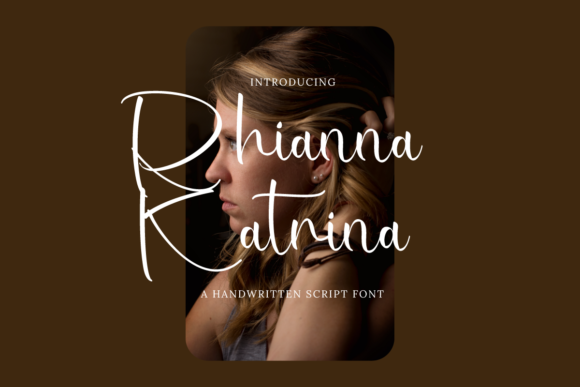
Journey into the realm of elegance and charm with Rhianna Katrina Font, a creation of Okara Studio, designed to be your go-to font for crafting exquisite wedding cards. This script font, a symphony of grace and sophistication, effortlessly blends the charm of traditional calligraphy with a touch of modern flair.
Picture your wedding invitations adorned with the delicate strokes of Rhianna Katrina. Its sweeping lines and graceful flourishes will transform your words into an enchanting symphony, captivating the hearts of your guests. Each letter, meticulously crafted, dances across the page, exuding a timeless beauty that transcends trends.
Rhianna Katrina Font is not merely a collection of characters; it's an experience, an expression of love and joy. Whether you're a professional designer or a creative enthusiast, this font will unleash your imagination, propelling your projects to unimaginable heights.
With Rhianna Katrina, you'll discover a world of creative possibilities. Design breathtaking wedding stationery, from save-the-dates to thank-you cards, that will leave a lasting impression on your loved ones. Create eye-catching social media graphics that capture the essence of your special day. Or let your imagination soar as you craft personalized gifts and home décor that radiate warmth and elegance.
The versatility of Rhianna Katrina extends beyond wedding-themed projects. Its timeless aesthetic lends itself effortlessly to a wide range of design endeavors. From branding and logos to marketing materials and social media posts, Rhianna Katrina will elevate your designs, exuding a touch of sophistication and charm.
Rhianna Katrina Font is more than just a font; it's an invitation to let your creativity flourish, to celebrate life's milestones with a touch of elegance. Embrace the beauty of handwritten artistry and let Rhianna Katrina transform your designs into captivating expressions of love, joy, and timeless elegance.